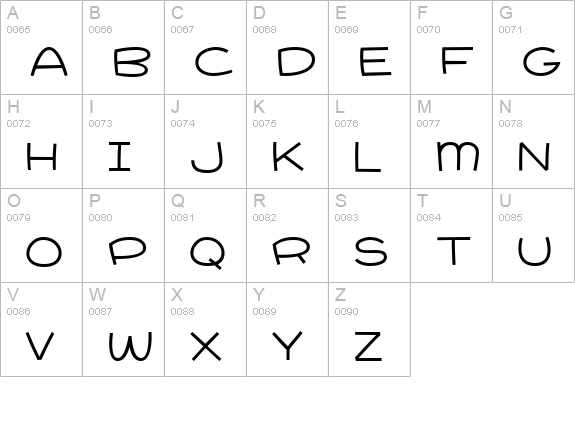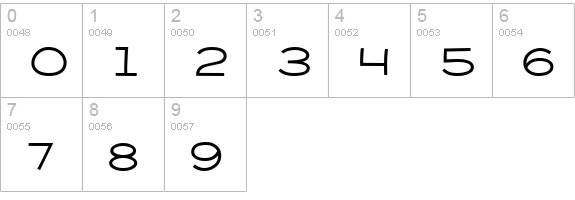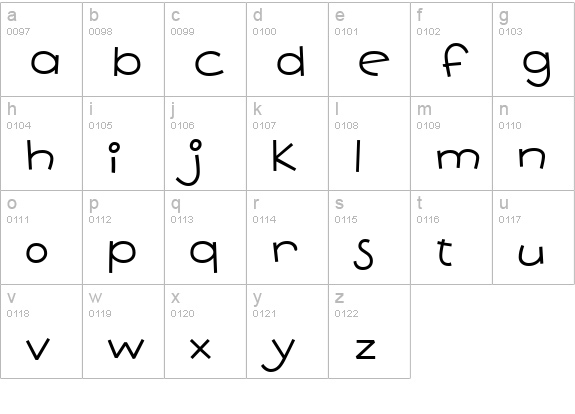
Pie Contest BTN Font Details
Introducing the delectably delicious Pie Contest BTN font! This delightful typeface is a perfect blend of elegance and playfulness, making it the ideal choice for all your creative projects. With its beautifully crafted letterforms and charming curves, Pie Contest BTN adds a touch of whimsy to any design. But what sets this font apart is not just its irresistible aesthetics, but also its incredible accessibility. Pie Contest BTN is available for free download at FontsMarket.com, making it easily accessible to all design enthusiasts, regardless of budget or experience. Whether you're a professional graphic designer or a passionate hobbyist, this font is at your fingertips, waiting to add that extra dash of flavor to your next project. With its wide range of characters and versatile styles, Pie Contest BTN is perfect for a variety of design applications. From creating eye-catching logos and branding materials to crafting captivating headlines and titles, this font is a true powerhouse when it comes to making a statement. Its bold yet friendly appearance makes it equally suitable for both print and digital projects, ensuring that your message will be conveyed with style and professionalism. So why wait? Indulge your creativity and download Pie Contest BTN for free at FontsMarket.com today. With its irresistible charm and easy accessibility, this font is guaranteed to become a staple in your design toolkit. Hurry and grab your slice of typographic perfection now!